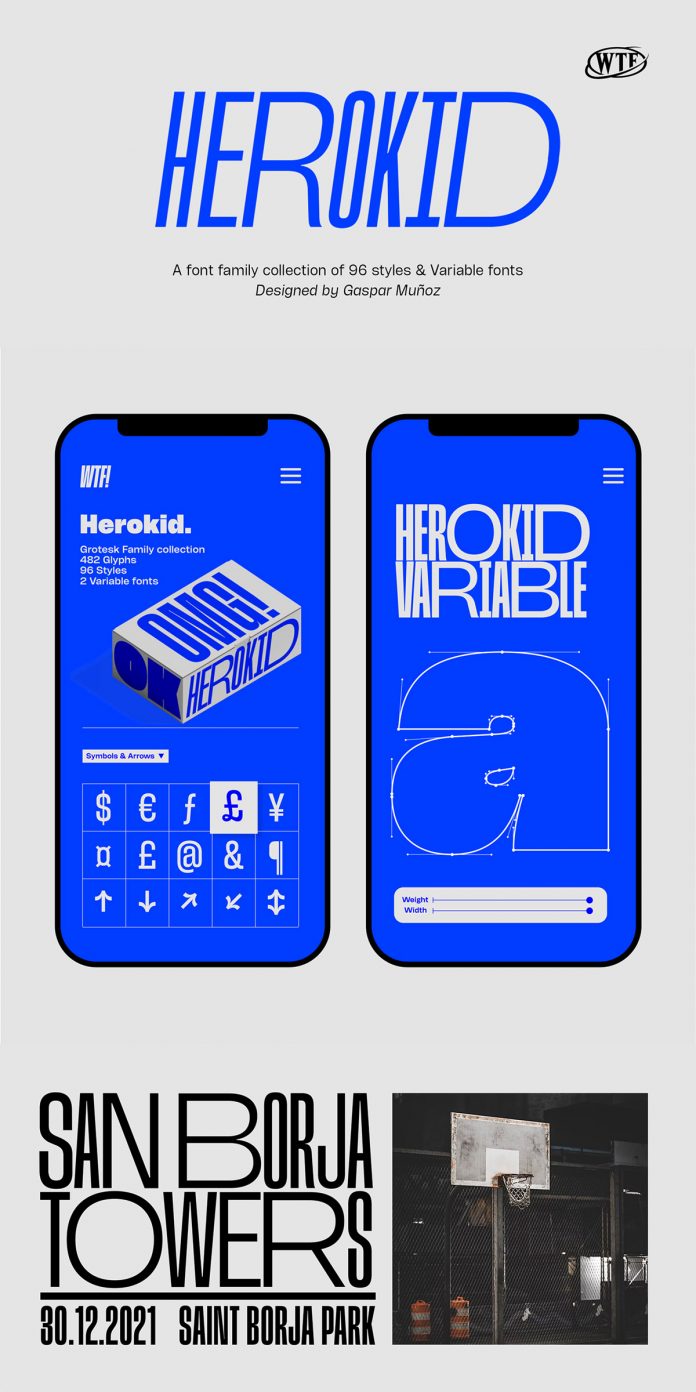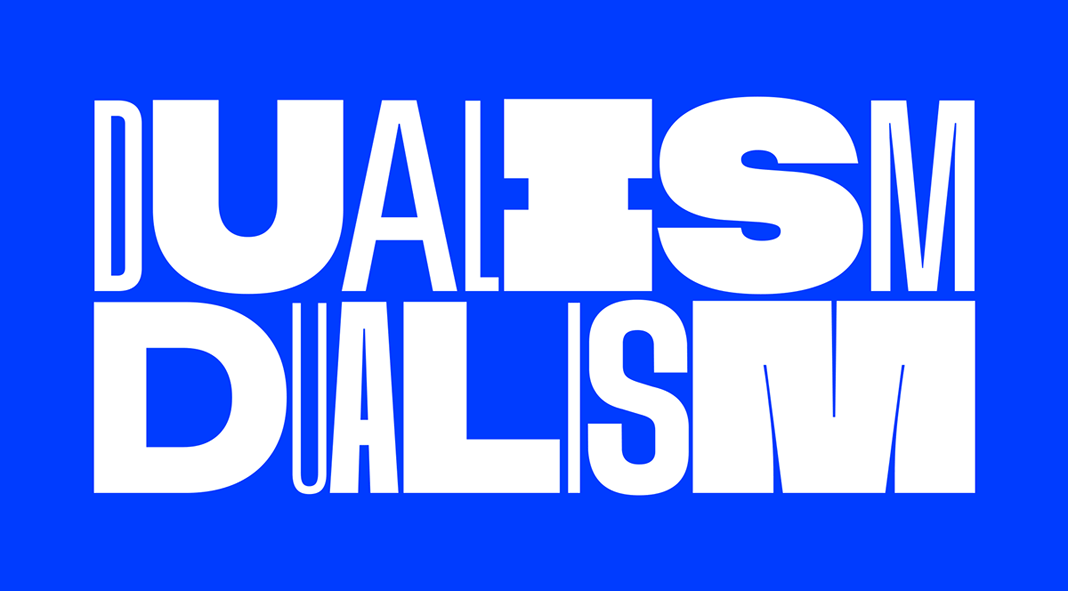
Herokid, a versatile and variable font family from W Type Foundry.
Designed in 2021 by Gaspar Muñoz for W Type Foundry, the Herokid font family draws inspiration from classic grotesque styles such as Helvetica, Impact, and Univers. With Herokid, typeface designer Gaspar Muñoz added a dynamic, versatile, and flexible personality to these styles. The Herokid font family comes with numerous weights ranging from Thin to Heavy, and widths ranging from Ultra Compressed to Ultra Expanded. Equipped with 96 variants, the family is adaptable to various design projects.
Using Herokid, you can create striking headlines as well as subtitles or text sections; all with the same font family. The great mix of wide and condensed sets allows for versatile combinations and can give great movement to any typographic design. Just click on the following link to learn more about this amazing typeface.